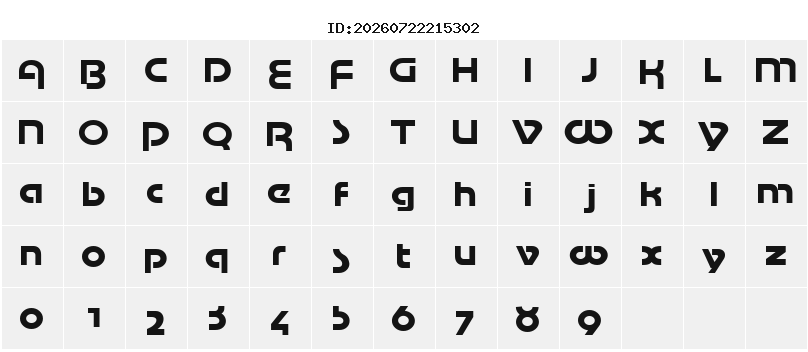
Mottek Preview
• Font Name: Mottek
• Full Font Name: Mottek Normal
About Mottek.ttf
Mottek.ttf is a modern, elegant sans-serif font designed for ultimate readability and visual harmony. Perfect for branding, headlines, web design, and print materials.